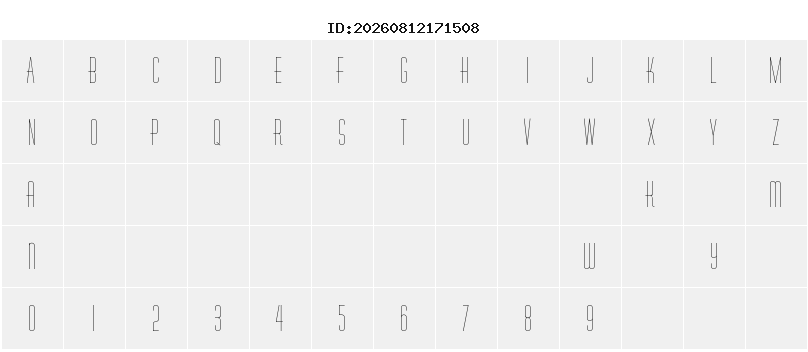
• Font Name: RhyoliteVertica
• Full Font Name: RhyoliteVertica
• PostScript Name: RhyoliteVertica
About RhyoliteVertica.ttf
RhyoliteVertica.ttf is a modern, elegant sans-serif font designed for ultimate readability and visual harmony. Perfect for branding, headlines, web design, and print materials.